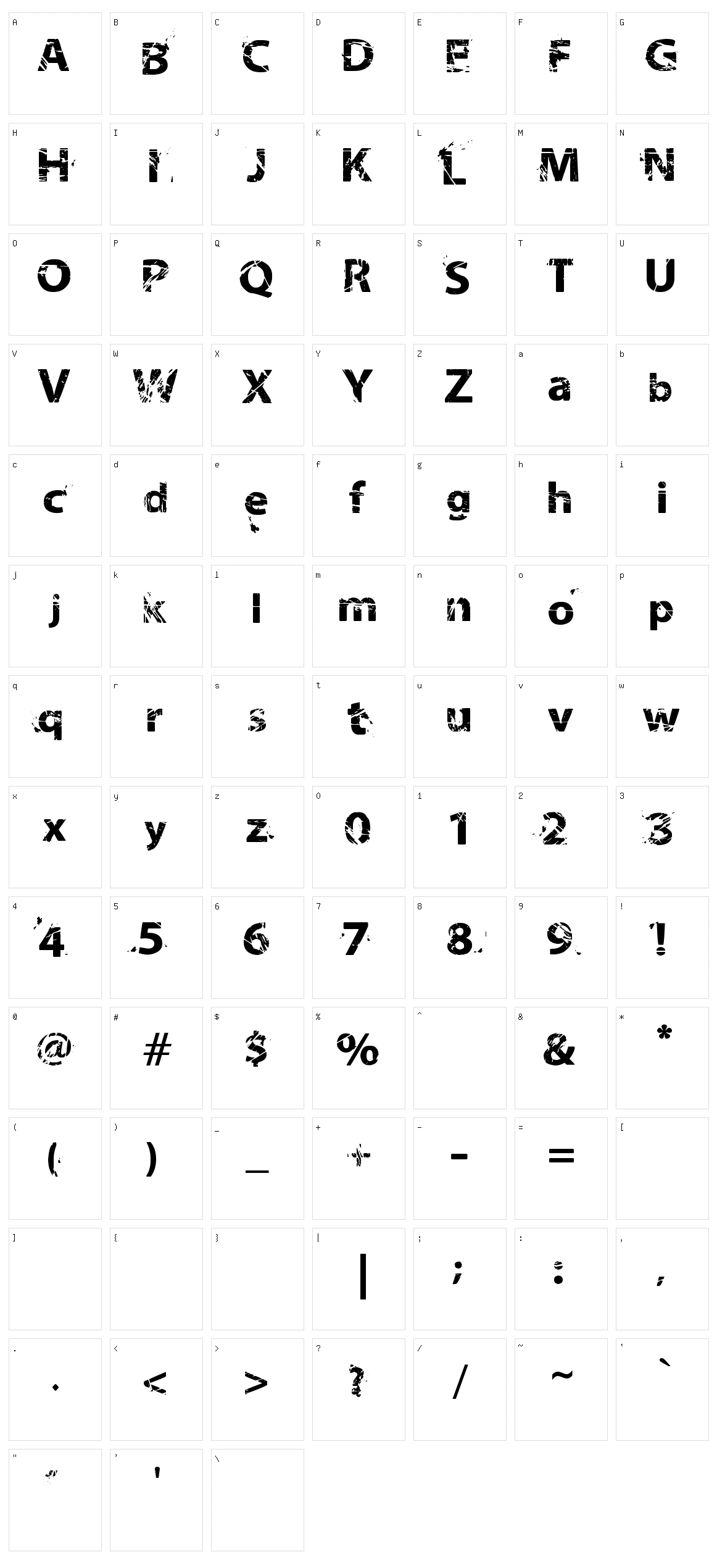
The free font Neo Trash is carefully designed by Milabrya, showcasing a thoughtful balance of creativity and usability and falls under the Destroy font style. When you download the ZIP file, it contains only 127.12 KB of font files, making it lightweight and quick to download. Please review the license details below to understand permitted usage and distribution rights. If license information is not available, we recommend using this font for personal projects only or contacting the author directly for commercial usage permissions.
Neo Trash Font 1.0